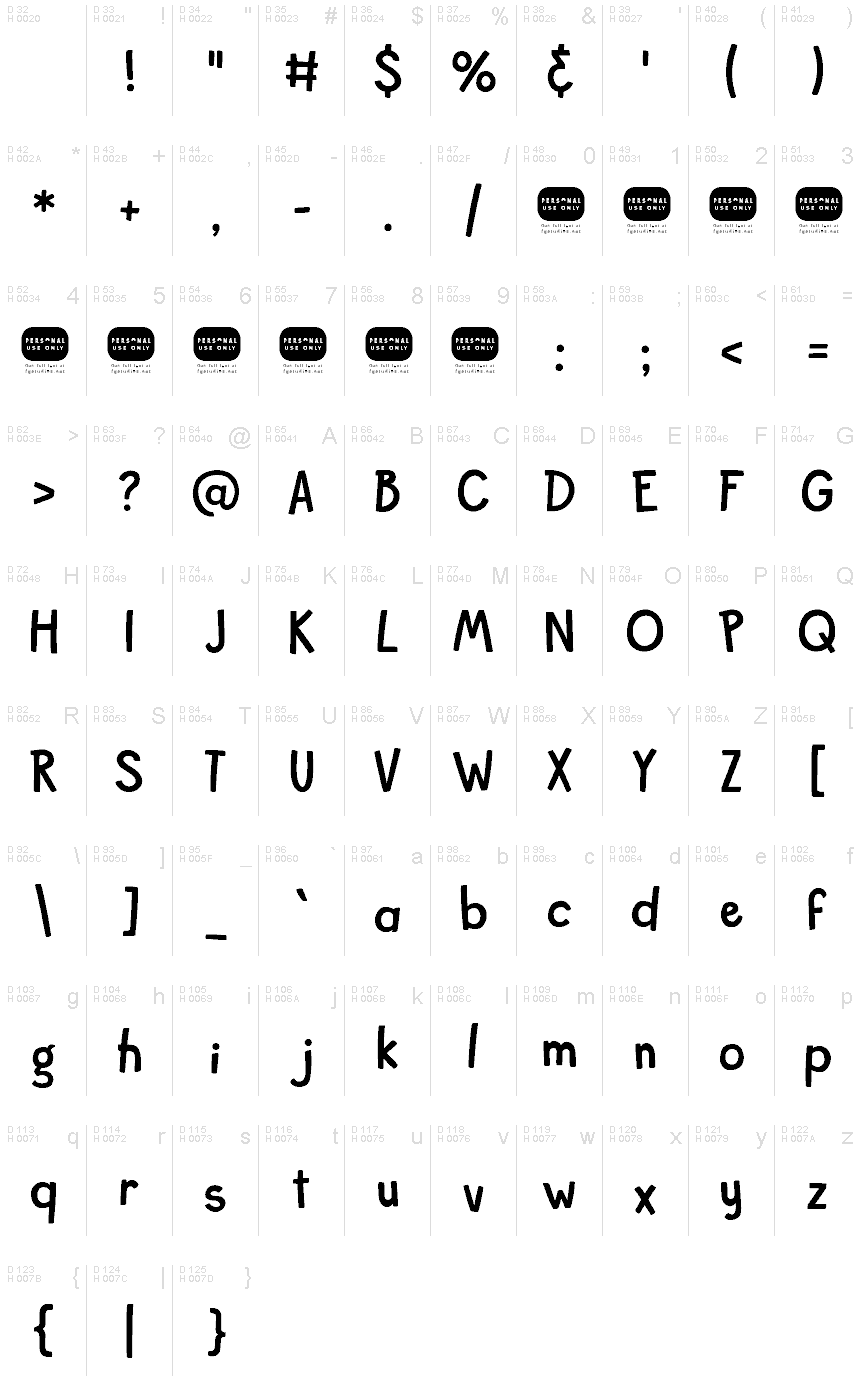
Piglet
Piglet font by FG Studios is a playful cartoon display font with a whimsical and informal demeanor. It exudes a friendly, approachable vibe ideal for projects needing an infusion of youthfulness and charm. Whether designing for kids or seeking to evoke nostalgia, this free font invites interaction with its casual, engaging aesthetic.